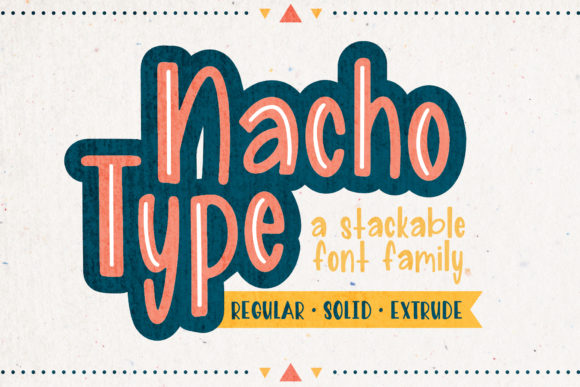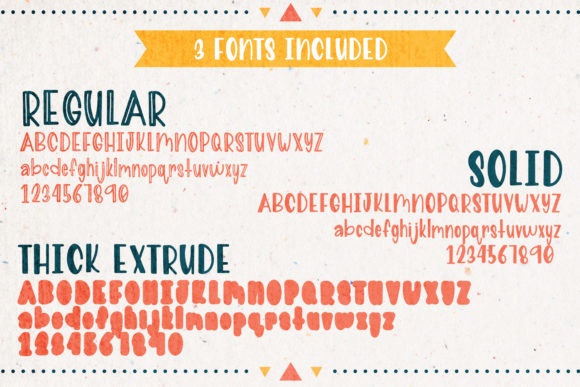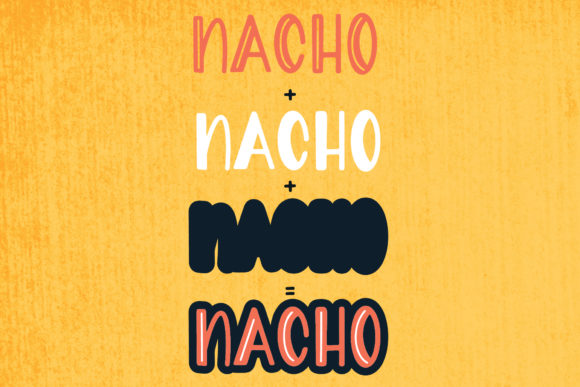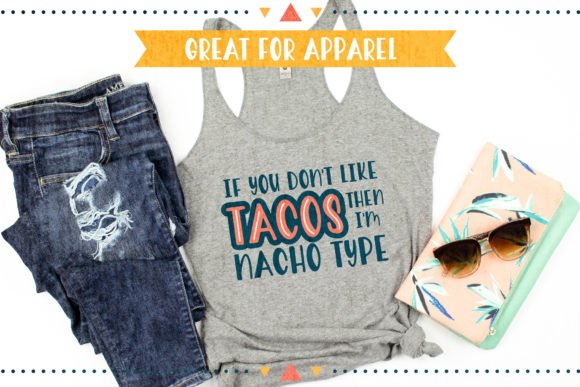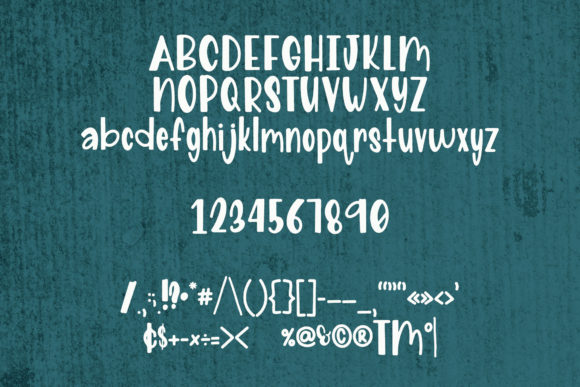
Nacho Type Font
Nacho Type is a hand-lettered feminine layered sans serif font family. It is perfect for all of your design work including holiday decorations, cinco de mayo t-shirts, Easter baskets and mugs, party banners, kids back to school school activity sheets, or print on demand products to name a few.
Great for any DIY project or cutting machine design such as welcome home and birthday banners.